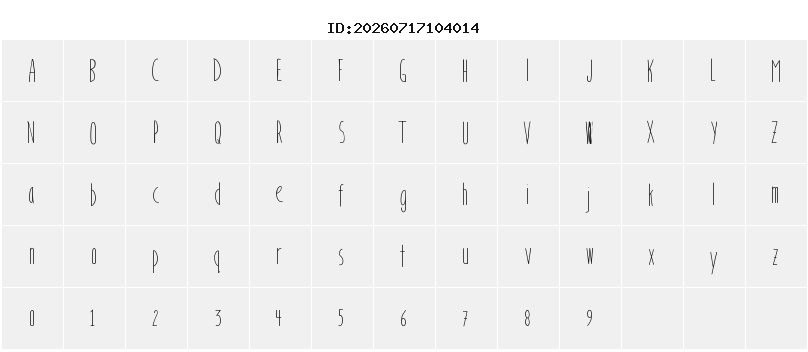
BookendsWithAccents Preview
• Font Name: BookendsWithAccents
• Font Style: BookendsWithAccents
• Font ID: JoanneAbellar:BookendsWithAccents
• Full Font Name: BookendsWithAccents
• PostScript Name: BookendsWithAccents
• Character Count: 167
About BookendsWithAccents.ttf
BookendsWithAccents.ttf is a modern, elegant sans-serif font designed for ultimate readability and visual harmony. Perfect for branding, headlines, web design, and print materials.